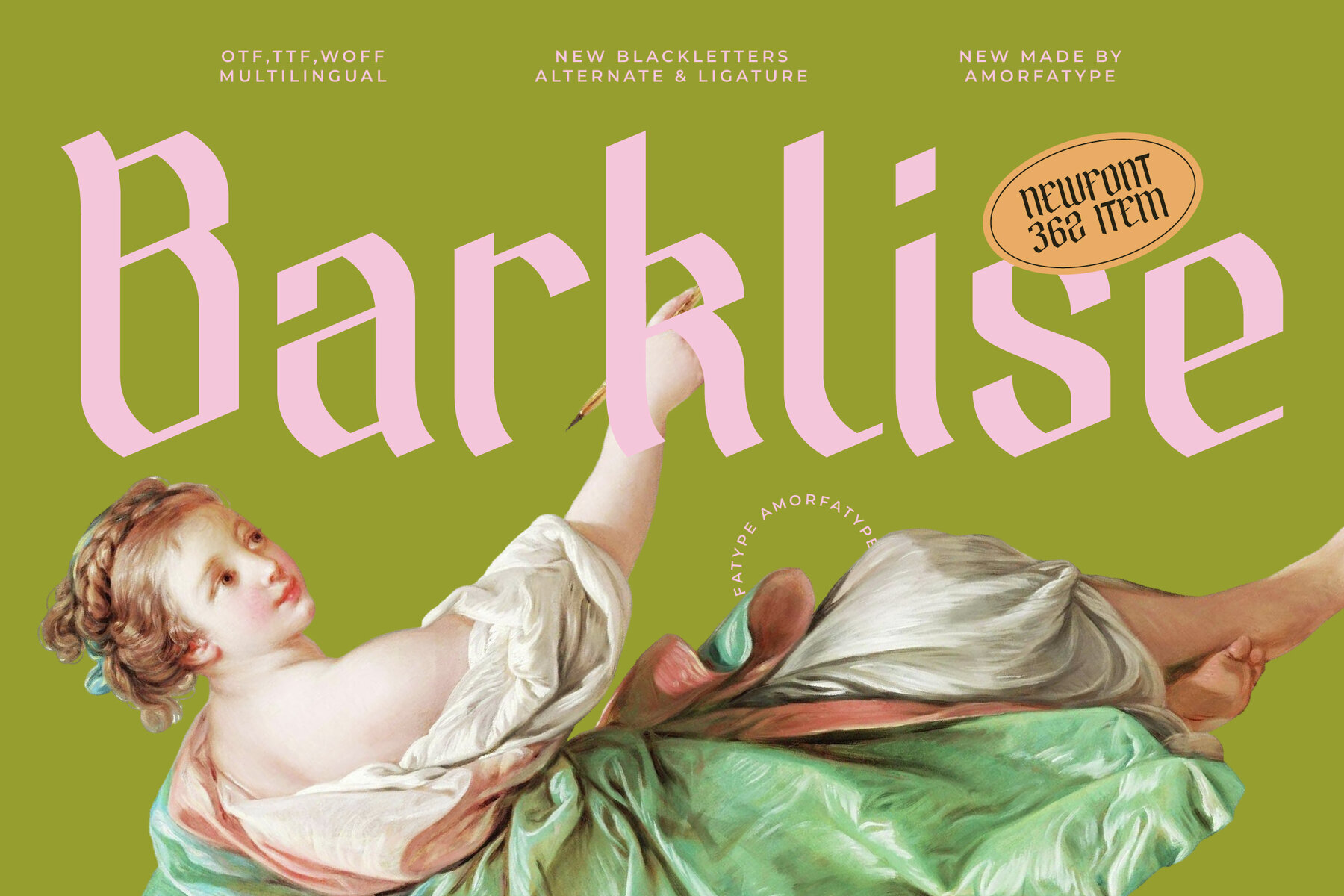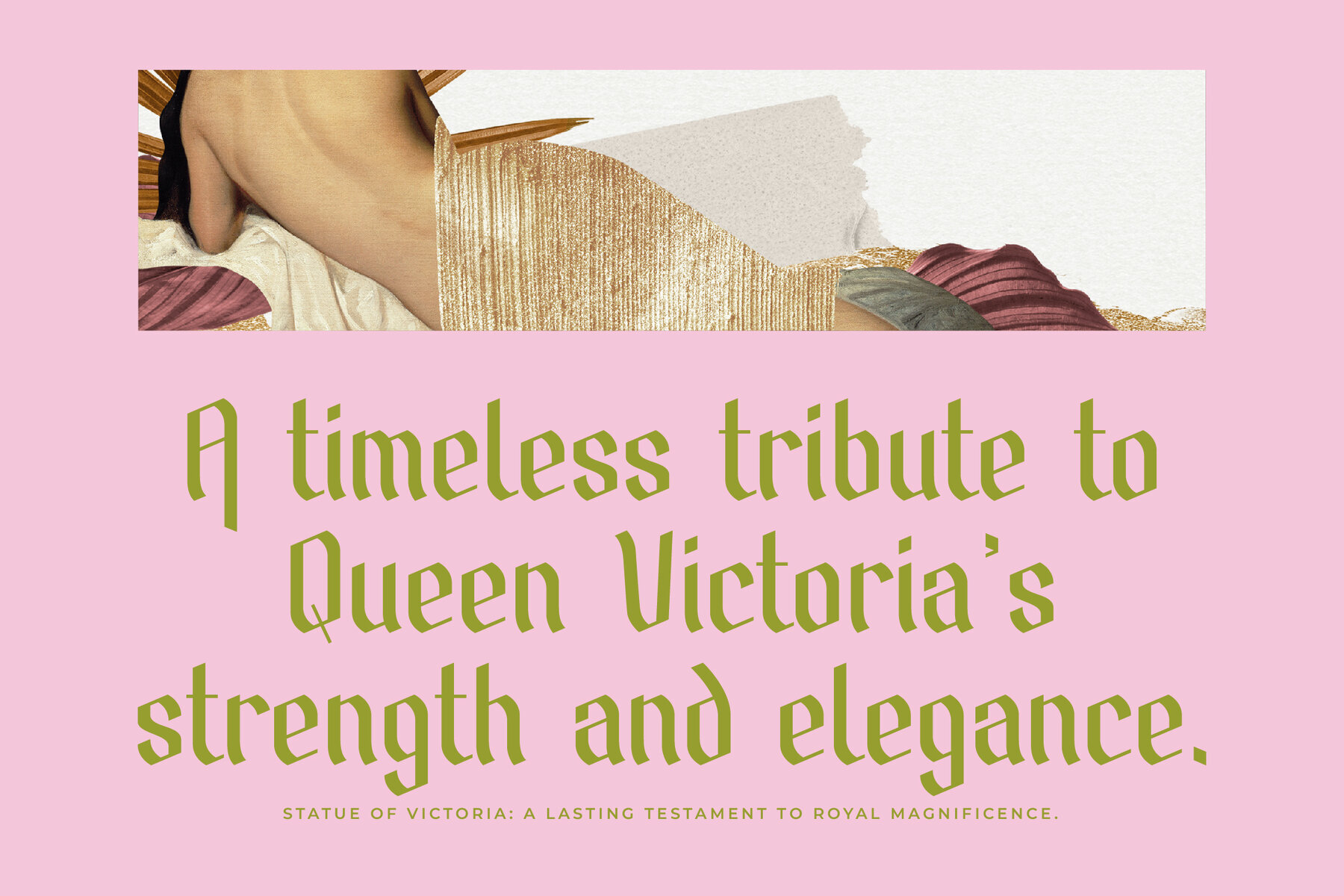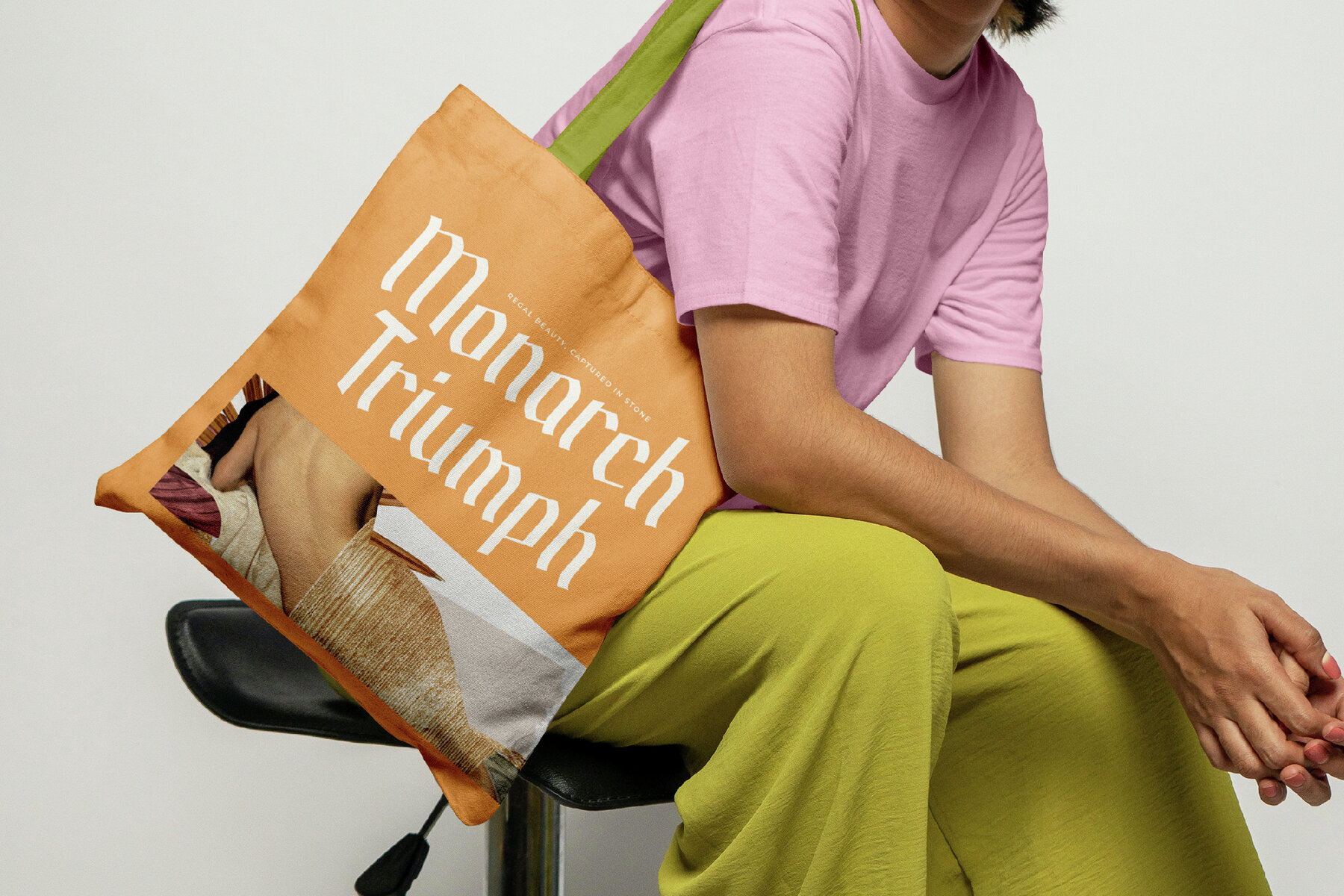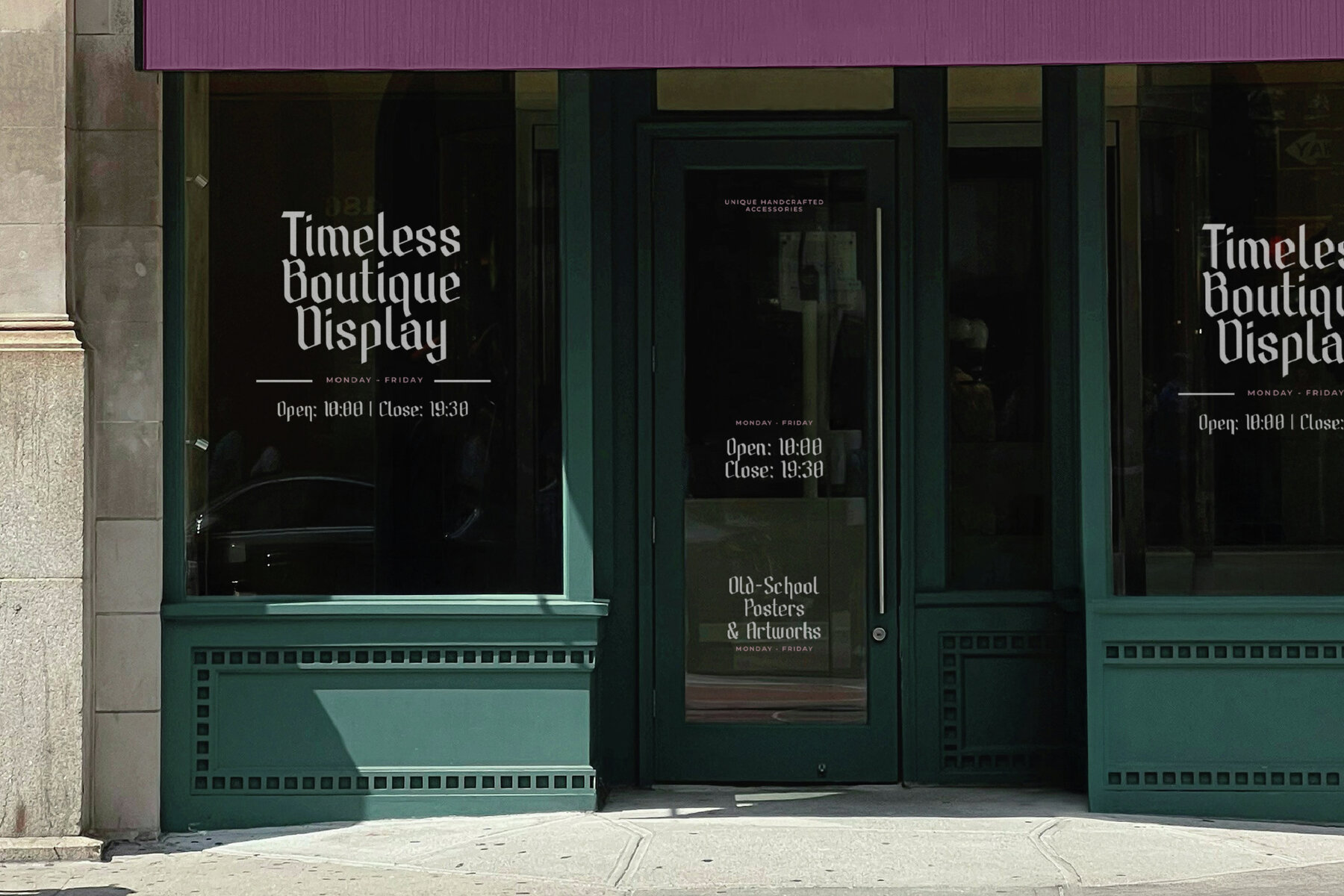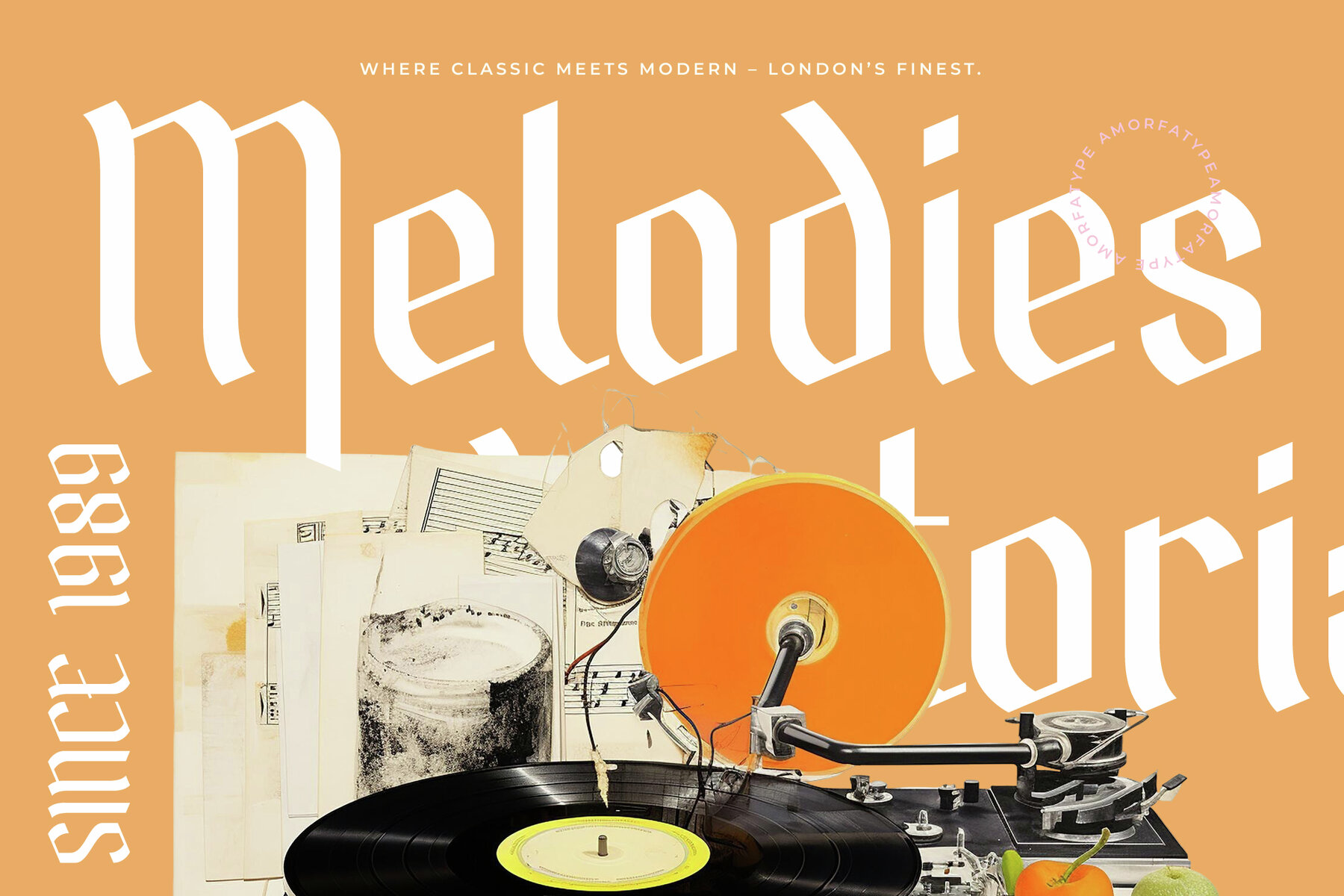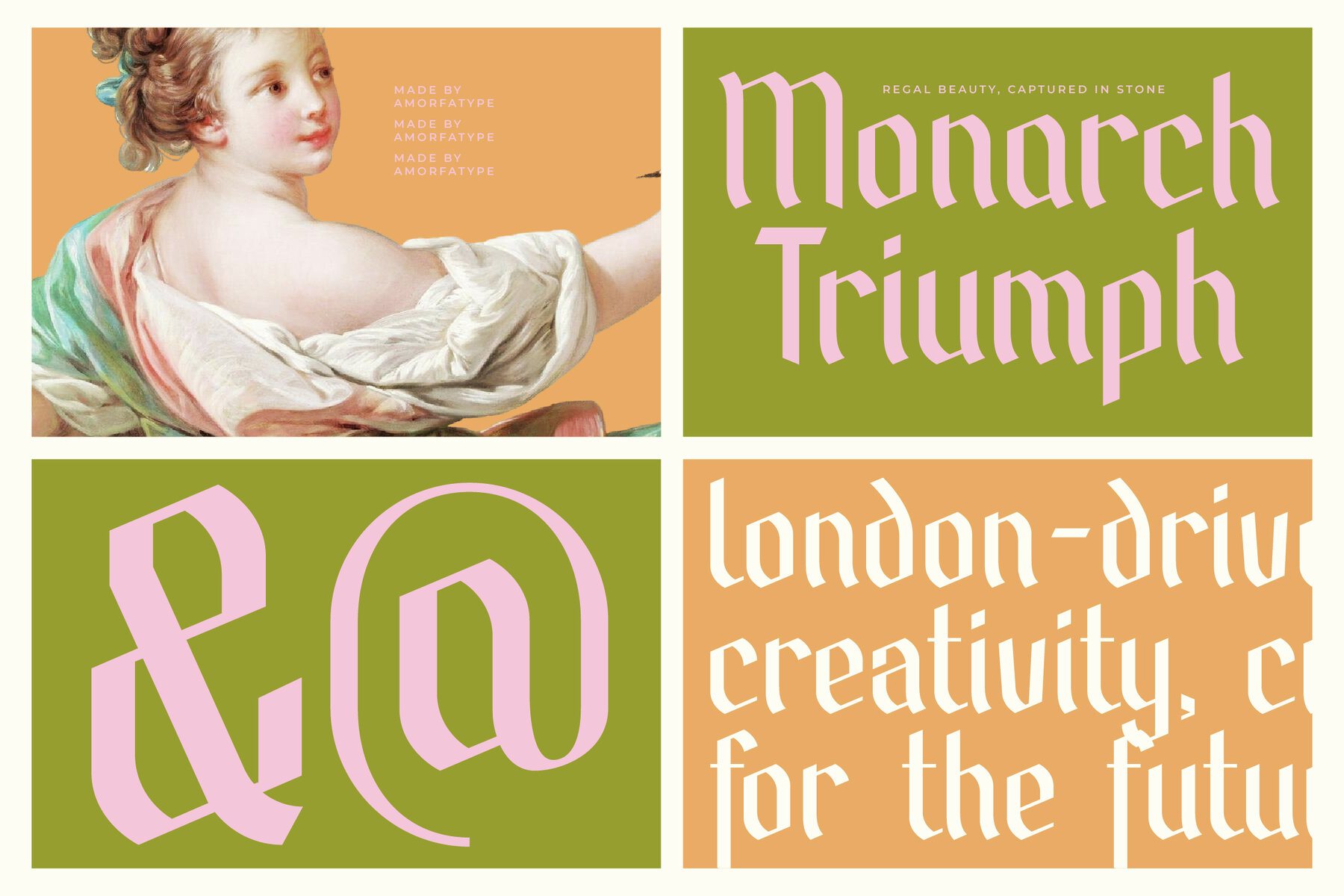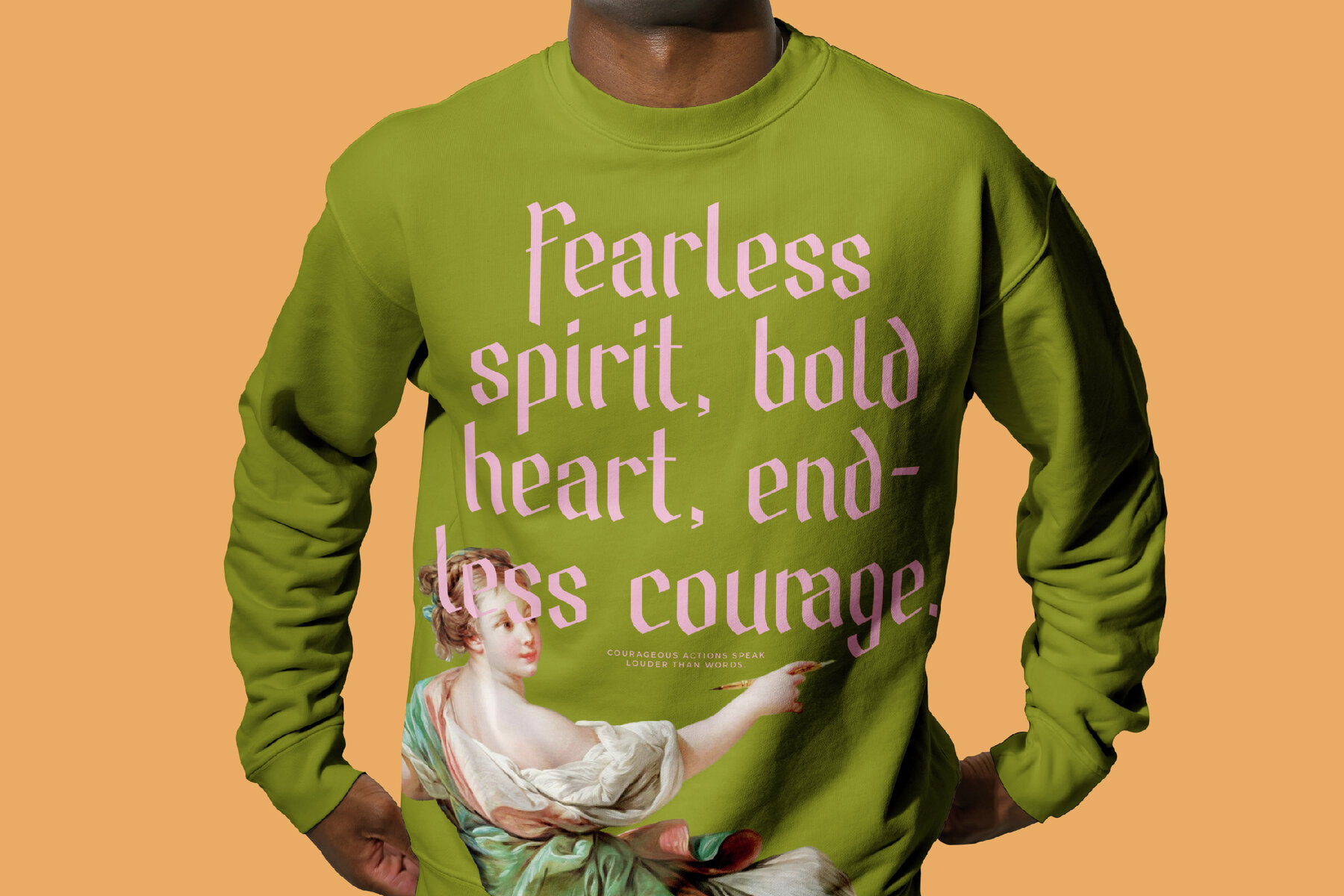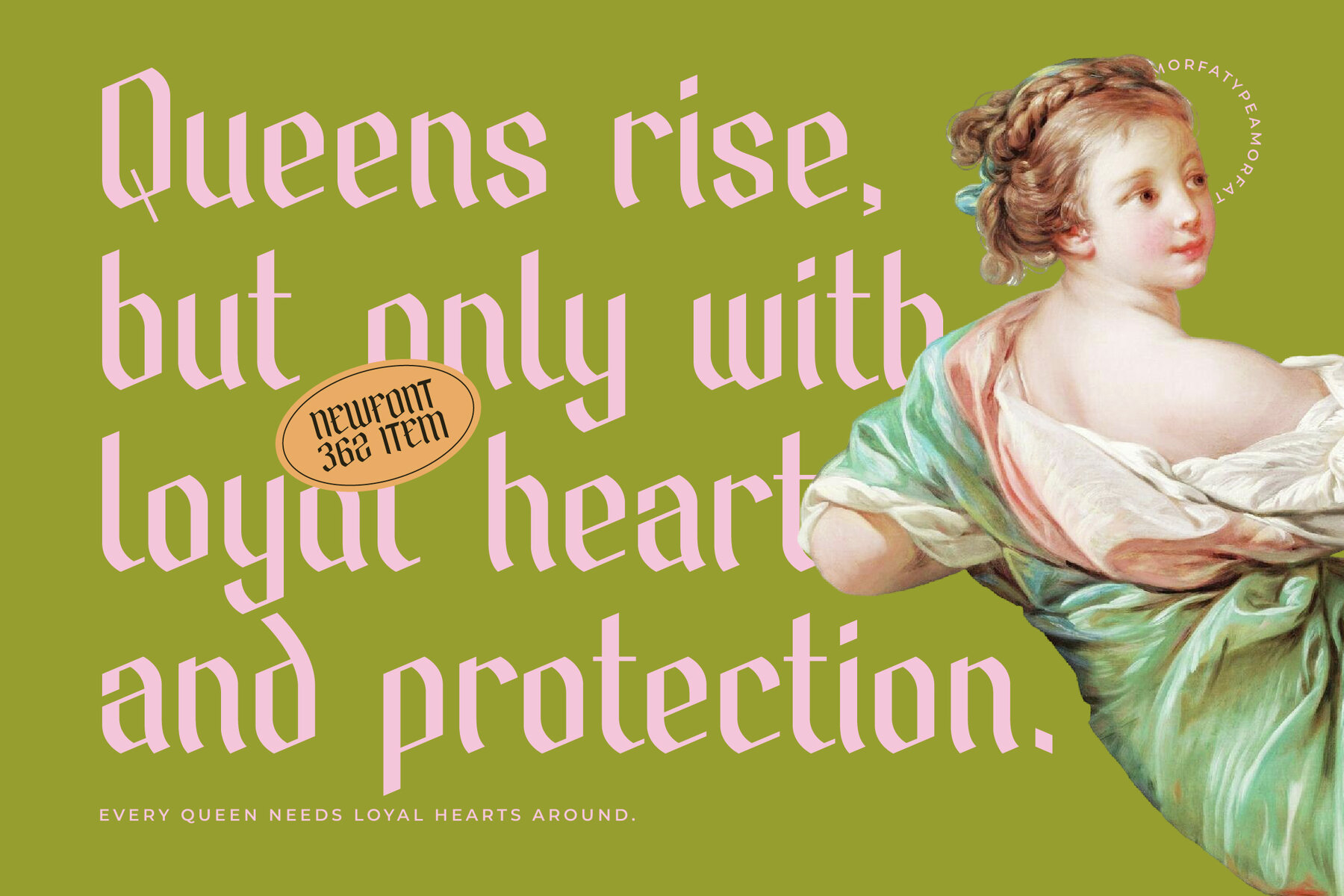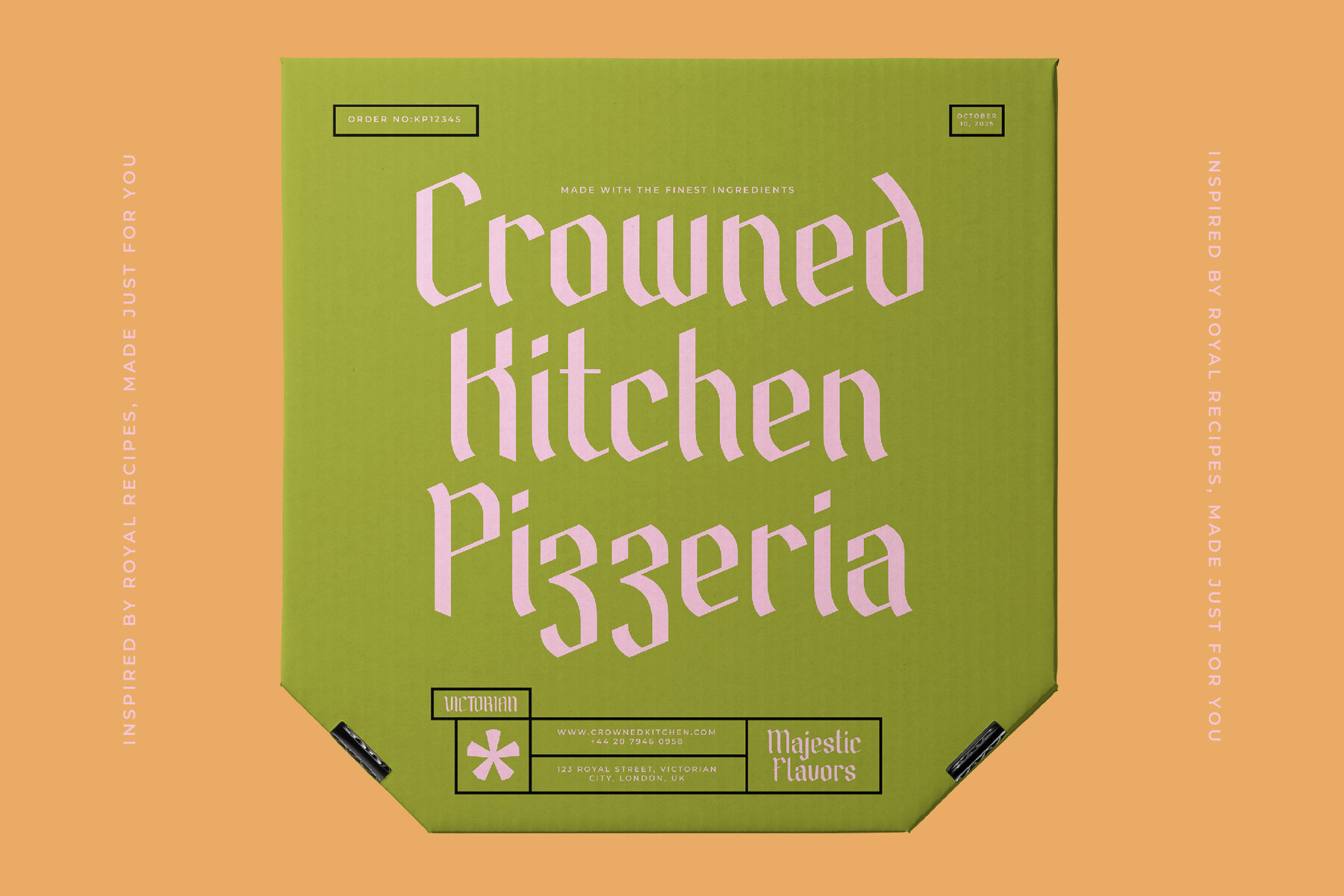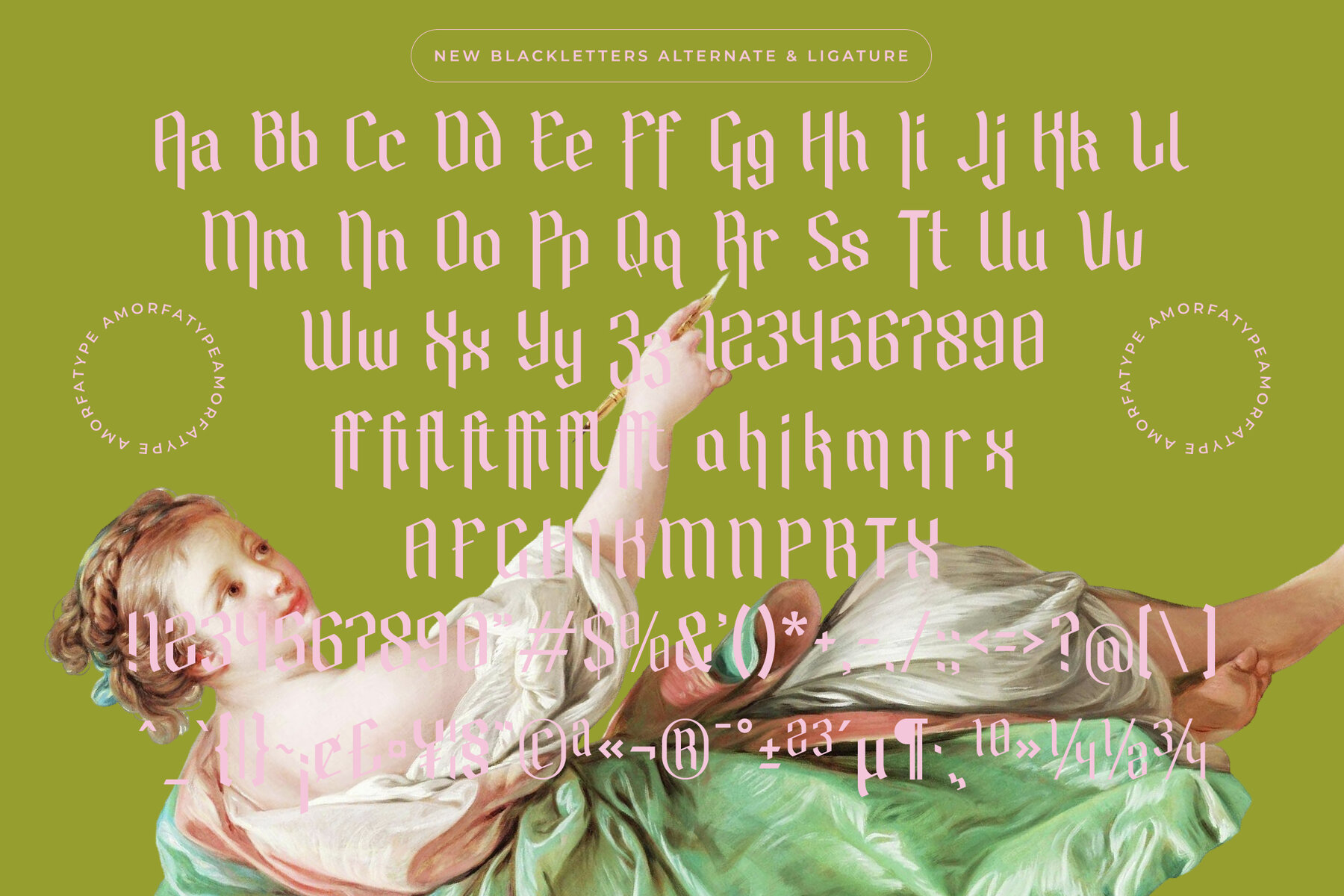
Barklise Font
Barklise – Modern Blackletters Font by Amorfatype Barklise is a daring modern blackletter font that reimagines gothic tradition with a bold contemporary spirit. Merging the dramatic flair of old-world calligraphy with sharp modern construction, Barklise delivers high-impact visual presence while maintaining legibility and style. Its edgy character shapes, pointed terminals, and balanced rhythm make it ideal for designs that demand attention and authority. Perfect for branding, album artwork, tattoo-inspired layouts, fashion labels, and posters, Barklise brings a sense of rebellion and elegance all at once. Designed to stand out, every letterform in Barklise reflects power, precision, and purpose — turning words into statements and headlines into art. Whether used in large-scale typography or detailed compositions, Barklise adapts with strong personality and visual impact, making it a favorite choice for designers looking to evoke boldness with a modern twist. This Package Includes: Ligatures & Stylistic Alternates Works on PC & Mac Easy to install Accessible in Adobe Illustrator, Photoshop, InDesign & Microsoft Word